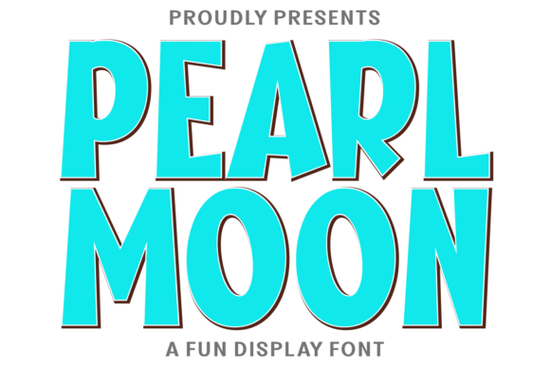
If you are looking for a typeface that blends vintage charm with modern playfulness, the Pearl Moon Font is a fantastic choice for your next project. This display font captures the bubbly, groovy aesthetic of the 1970s through the 1990s, making it highly versatile for crafters and small business owners. Whether you are designing a quirky t-shirt or a cozy mug, its chubby letterforms give your work a friendly, approachable feel. You can easily find this specific display typeface to start adding a retro touch to your creative toolkit today.
What makes this typeface stand out for crafting and print-on-demand?
When you run a print-on-demand shop or sell handmade goods, your typography needs to catch the eye while remaining readable. The rounded, bold strokes of this typeface work beautifully for sublimation and vinyl cutting. It is especially popular for creating snug hoodies, personality-filled mugs, and visually pleasing wall art. Because the letters have a soft, chunky profile, they translate really well when cut with a Cricut or Silhouette machine. You do not have to worry about tiny, delicate details breaking off during the weeding process, which saves you a lot of time and frustration when fulfilling bulk orders.
How can small businesses use it for branding and digital marketing?
Small business owners often need a cohesive look across their packaging and digital presence. This typeface is ideal for branding because it feels both nostalgic and fresh. You can use it to make your business logo pop on custom tote bags or to add a soft touch to your product packaging. If you rely on Canva for your social media posts, importing this font allows you to keep your feed looking consistent and on-trend. If you ever need a slightly different vibe for a seasonal campaign, you might also explore options like the School Summer font for a more vacation-themed look, or the Aesthetic Rigelsia font when you want something a bit more elegant and flowing.
Is it suitable for scrapbooking and paper crafts?
Paper crafters and scrapbookers will find this typeface incredibly useful for adding a quirky edge to their layouts. It pairs wonderfully with retro stickers, washi tape, and vintage-style photographs. When you are designing custom stickers or planning a scrapbook page about a groovy road trip, the bubbly letters add the perfect amount of character. For projects that require a bit more contrast, you can mix it with a cleaner script or a sharp tattoo letter font to create visual interest. It also works beautifully for embroidery designs on pillows, giving them a handmade, cutesy appearance that customers love.
What are the best practices for pairing and using this font?
To get the most out of your typography, keep these practical tips in mind:
- Keep pairings simple: Since the letters are already quite bold and expressive, pair them with a clean, minimalist sans-serif for your body text to maintain readability.
- Mind the spacing: The chubby nature of the characters means you might need to adjust the tracking or kerning slightly so the words do not look too cramped on smaller items.
- Use color wisely: Pastel shades like mint green, soft pink, and lavender highlight the retro feel, while bright neon colors push it into a fun, 90s pop-art direction.